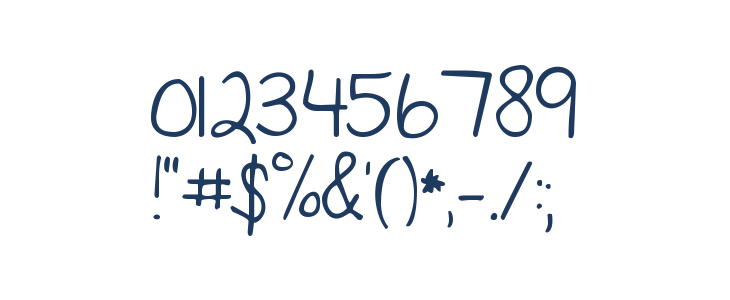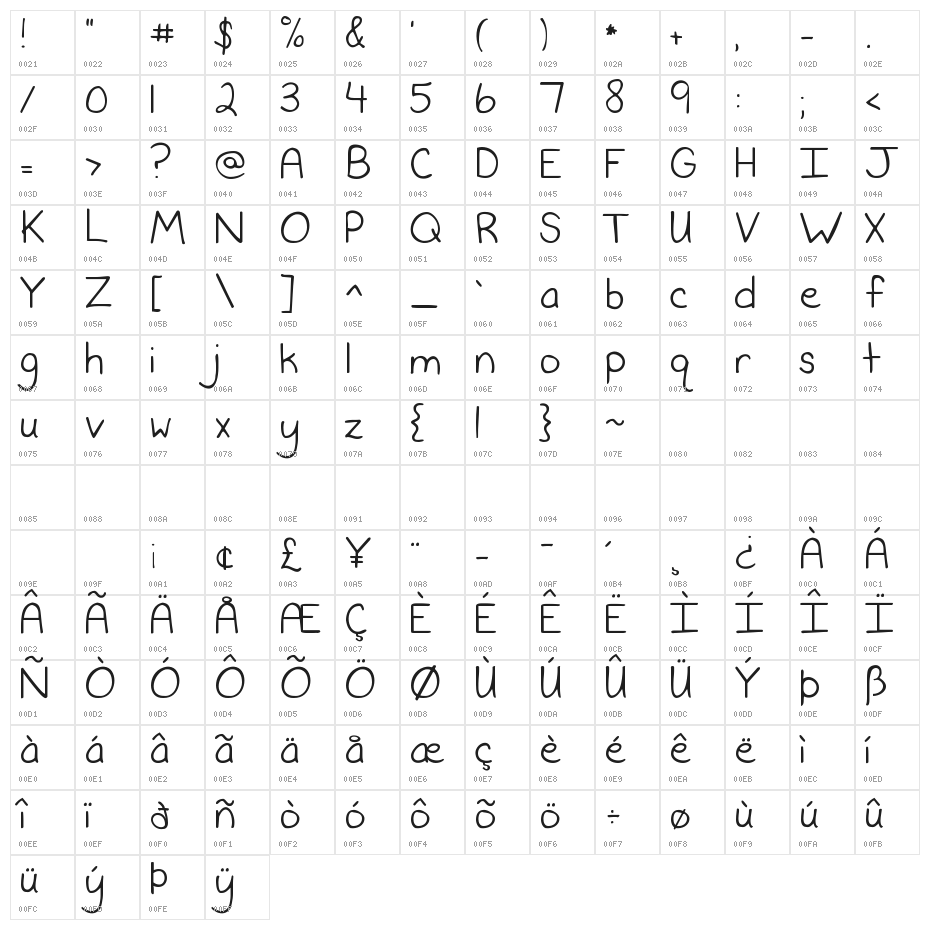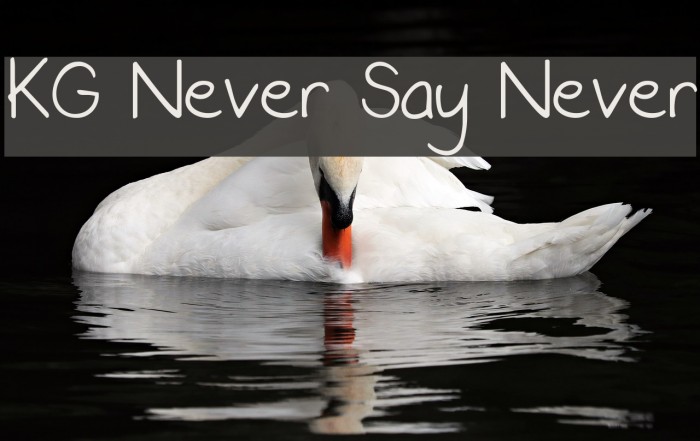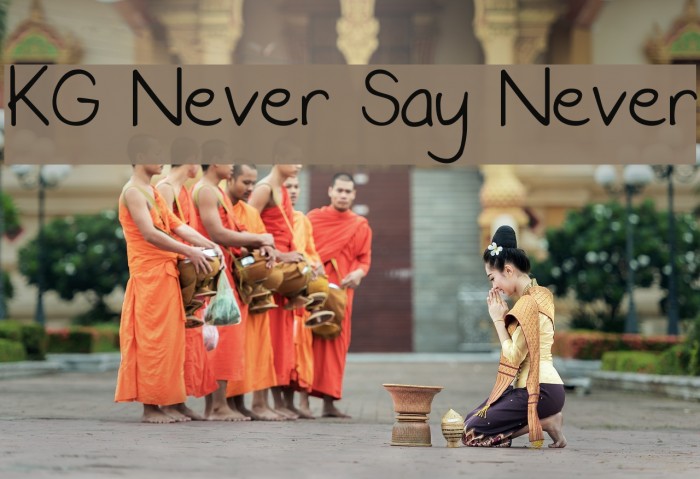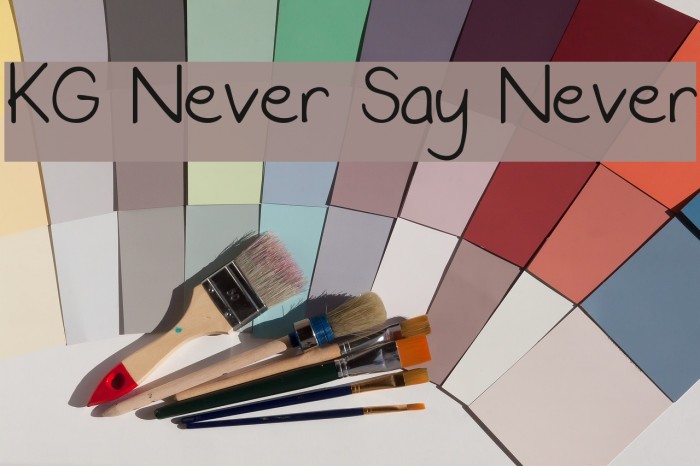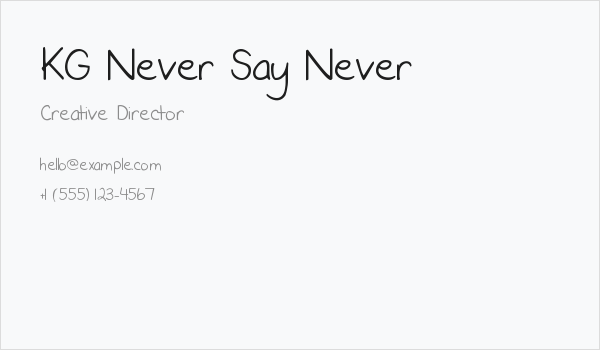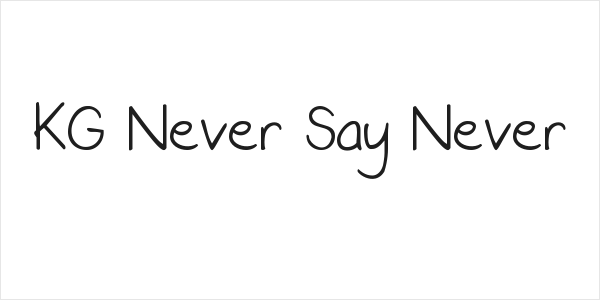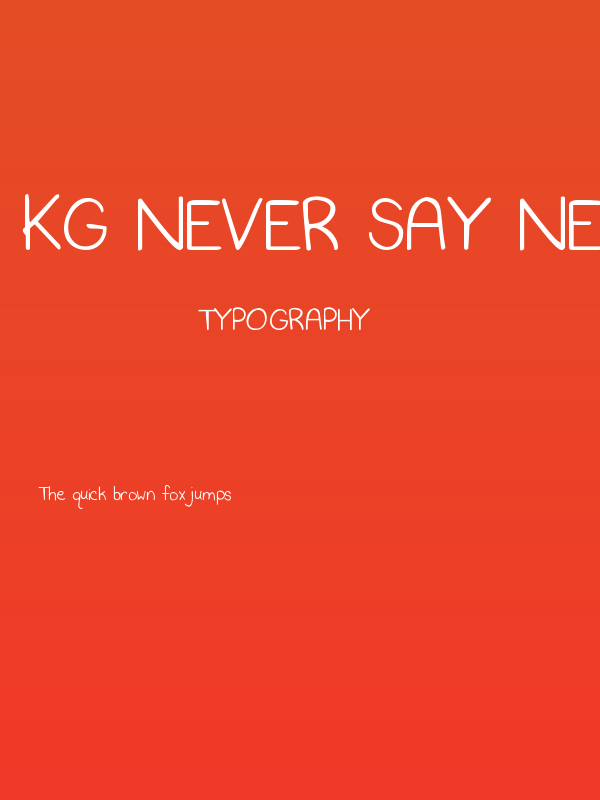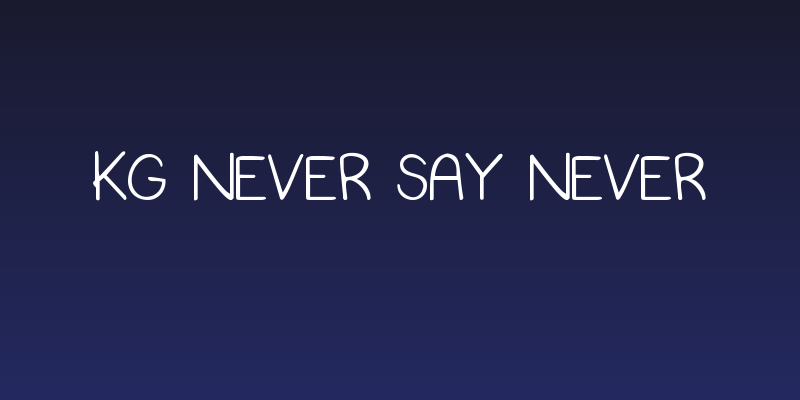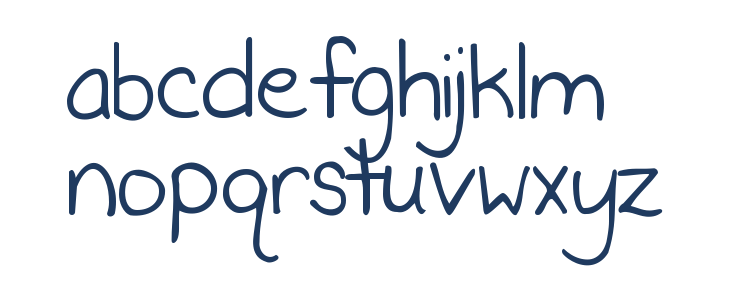
KG Never Say Never Font
KG Never Say Never Description
This playful and whimsical font features a handwritten style with a casual and friendly appearance. The letters are slightly irregular, giving it a personal and informal touch. The uppercase letters are tall and narrow, while the lowercase letters are rounded and more open. The numbers and special characters maintain the same playful style, making it versatile for various creative projects. The overall look is approachable and fun, suitable for designs that aim to convey warmth and personality.
| Proposed Projects | Ideal for children's books, greeting cards, playful branding, and informal invitations. |